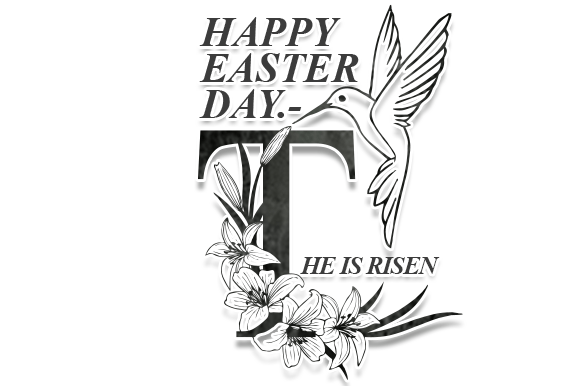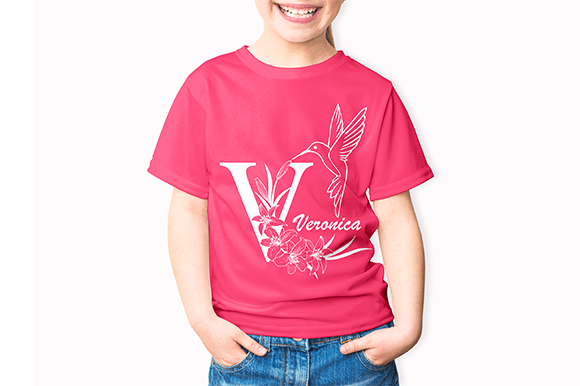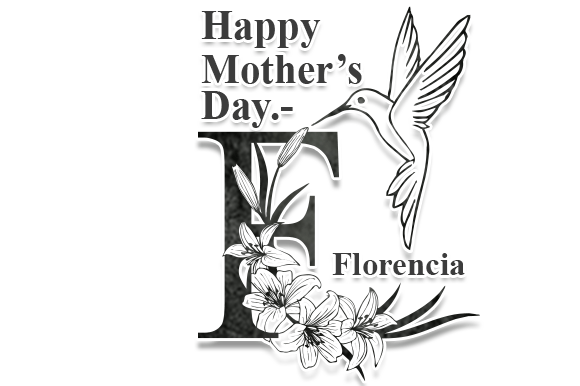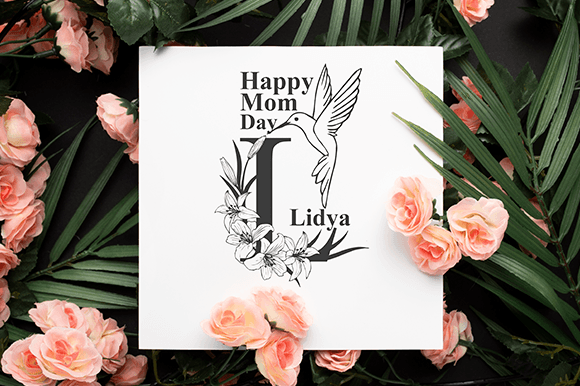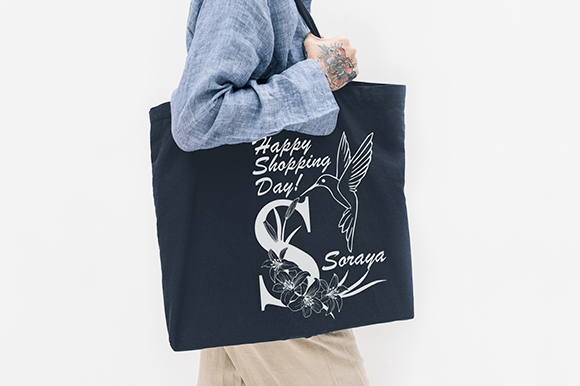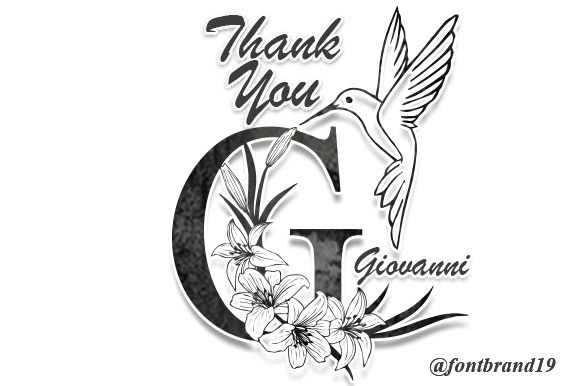
Discover the Magic of Bird Lily Flower Font
Remember the thrill of finding that perfect font to elevate your design project? You’re browsing through a sea of options, and then suddenly, you stumble upon it – a font that speaks to you, a font that tells a story. For me, that moment happened when I discovered the Bird Lily Flower Font. This elegant decorative font is a masterclass in whimsy and romance, featuring lovely ornaments that will transport your designs to a world of enchantment.
Whether you’re a seasoned designer or a creative newbie, the Bird Lily Flower Font is a valuable addition to your toolkit. Its authentic feel makes it perfect for creating gorgeous wedding invitations, beautiful stationery art, eye-catching social media posts, and cute greeting cards. With this font, the possibilities are endless, and your designs will never be the same.
Bird Lily Flower Font Key Features
- Unique Floral Design: The Bird Lily Flower Font features a unique, hand-drawn design inspired by flowers and nature, making it perfect for projects that require a touch of elegance and whimsy.
- Highly Versatile: This font is suitable for a wide range of applications, including wedding invitations, greeting cards, scrapbooking, and digital art, due to its versatility and expressive nature.
Bird Lily Flower Font Review
The font’s unique design is a major plus. The combination of floral elements and delicate lines creates a beautiful, whimsical feel that’s perfect for projects requiring a touch of elegance.
It’s highly versatile and suitable for a wide range of applications, from logos and branding to invitations and wedding stationery.
The font’s customization options are also a bonus, allowing users to adjust the size, color, and spacing to suit their needs.
One of the main drawbacks is that the font can be quite busy and overwhelming, especially when used in large quantities or at small sizes.
Some users may find the font’s design too ornate or over-the-top, which could be a turn-off for more minimalist projects.
Additionally, the font’s compatibility with certain software or systems may be limited, which could cause issues for users working with specific tools or platforms.
Overall, the “Bird Lily Flower Font” is a beautiful and versatile font that’s perfect for projects requiring a touch of elegance and whimsy. While it may have some limitations, its unique design and customization options make it a great choice for creatives looking to add a little something special to their work.
The Bird Lily Flower Font is perfect for:
- Crafting invitations and wedding stationery.
- Designing floral-themed posters and prints.
- Creating elegant and whimsical digital art.
For the best results, use the Bird Lily Flower Font in combination with other floral-themed elements and soft colors.